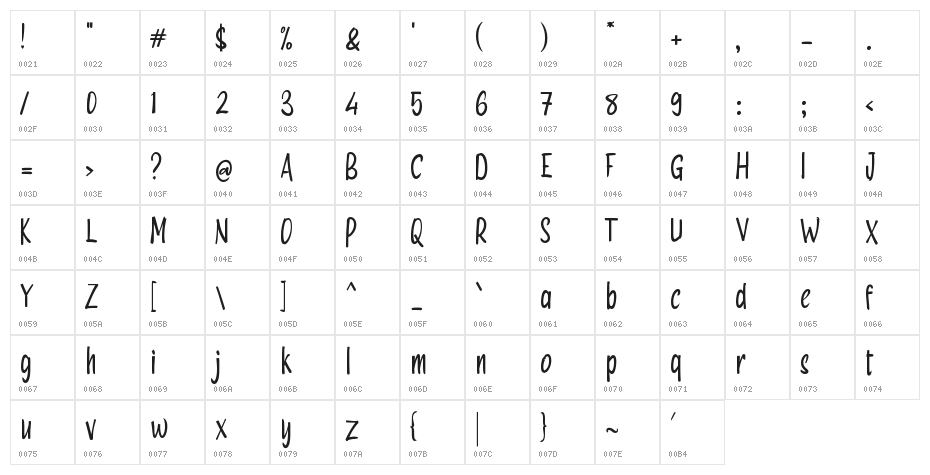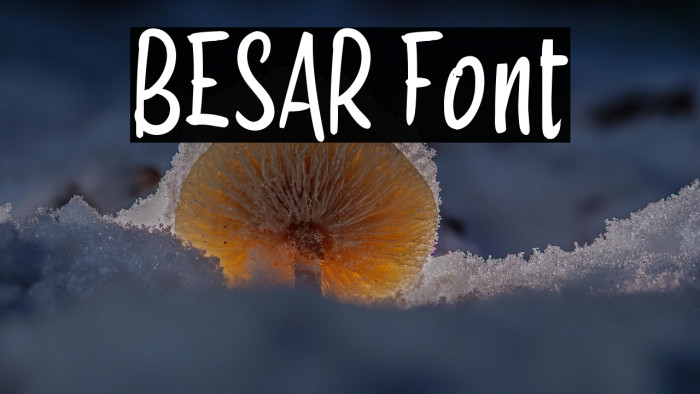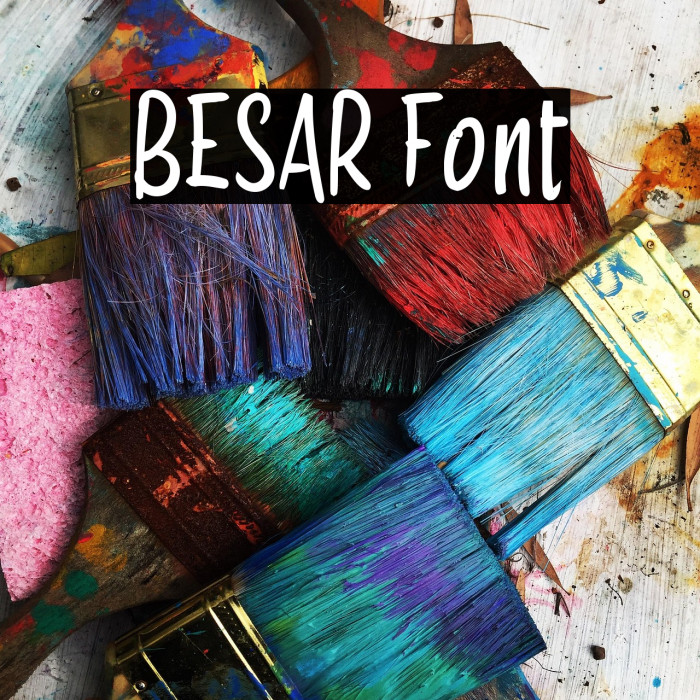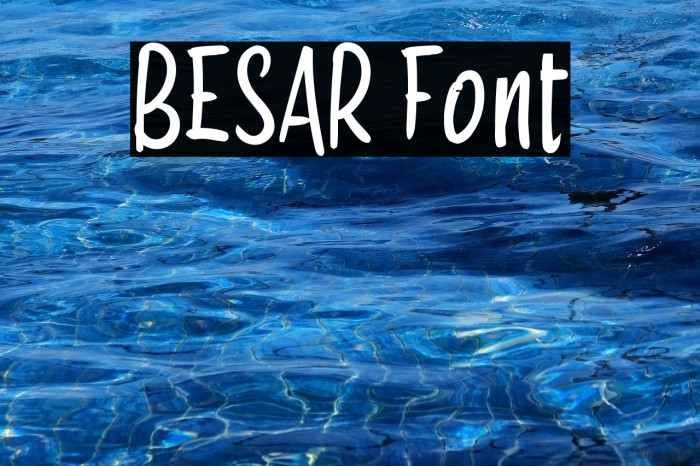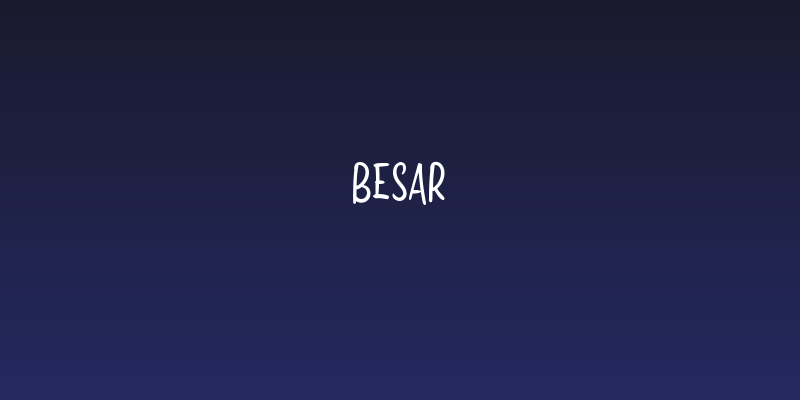
BESAR Font
BESAR Description
This font features a playful and casual handwritten style, characterized by its uneven strokes and slightly irregular letterforms. The uppercase letters are bold and dynamic, while the lowercase letters maintain a consistent flow, adding to the font's informal charm. The numerals and special characters follow the same playful aesthetic, making them suitable for creative and fun projects. The overall appearance is approachable and friendly, perfect for designs that aim to convey warmth and personality.
Overall StyleCasual, Playful
Use CaseHeadlines, Logos, Informal Text
Proposed ProjectsIdeal for greeting cards, children's books, playful branding, and social media graphics.